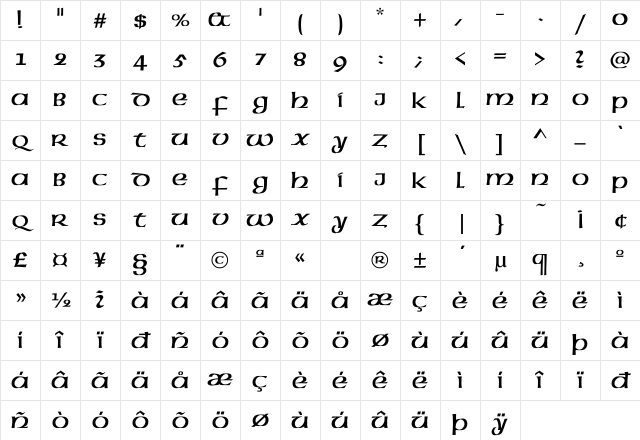
AmericanUncial- Regular Free Font
AmericanUncial- Regular
Complete AmericanUncial- Regular glyph index. Displaying only characters natively supported by AmericanUncial- Regular font.
Design Context for AmericanUncial-
AmericanUncial- is a composed and adaptable typeface that performs quietly and consistently across a wide range of design contexts.